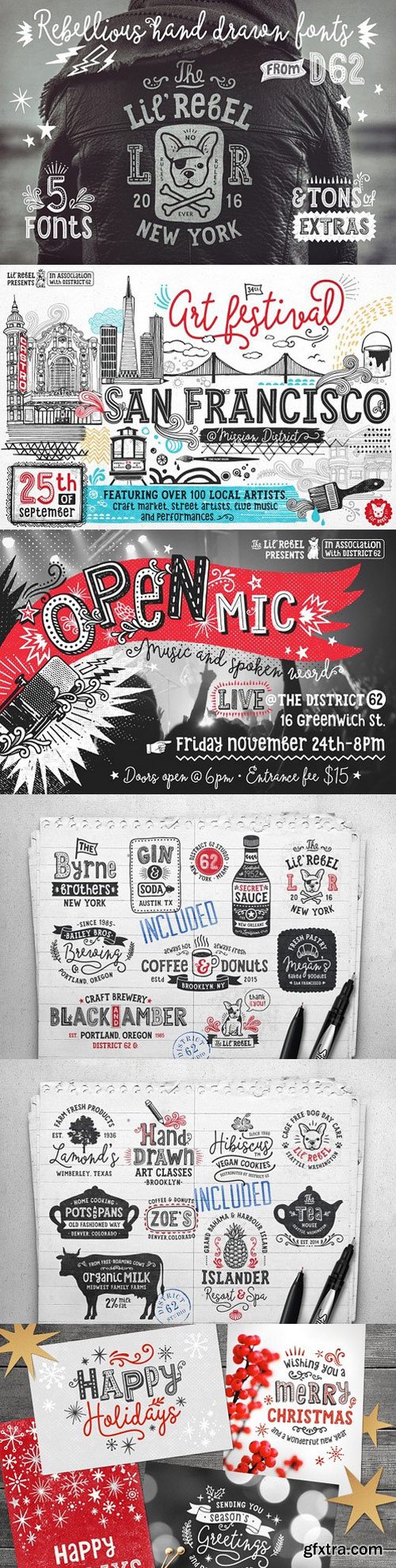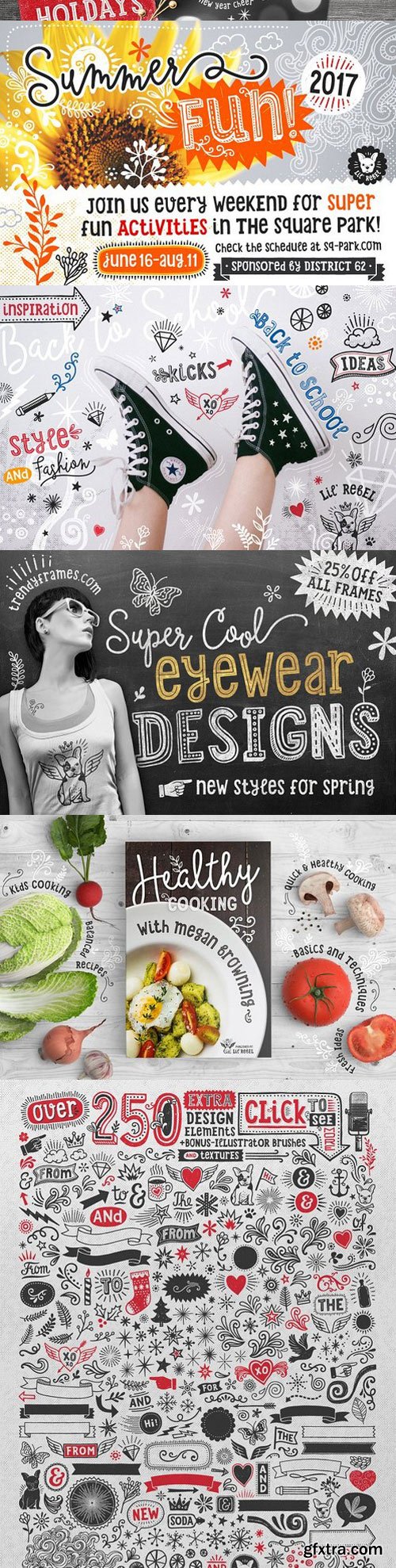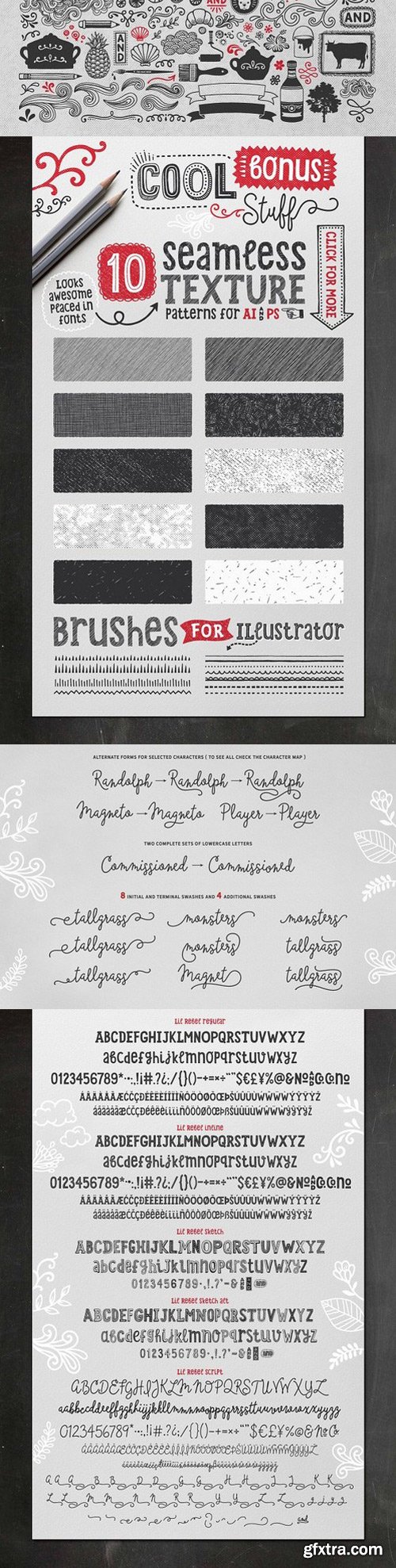
Lil' Rebel Font Collection
This is a collection of hand drawn fonts that are meant to be mixed up to create fun looking typography projects. The Regular, Inline, Sketch and Sketch Alt fonts can all be mixed together for playful looks. The script has been designed to automatically cycle between its lower case characters to give a spontaneous, real hand drawn feel.